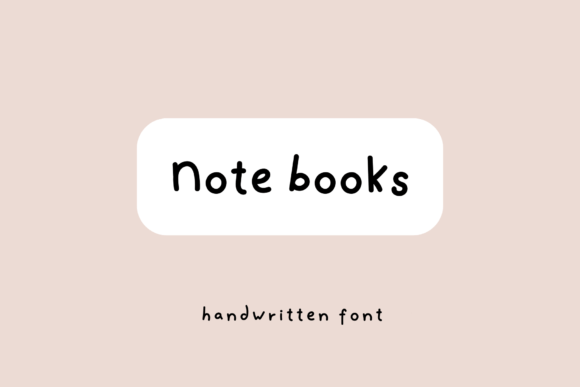
Embrace the Sweetness of Note Books Font: Add a Whimsical Touch to Your Designs
Introducing Note Books Font, a captivating script font family exuding an irresistible charm. This delightful font is the brainchild of Cotton White Studio, a creative powerhouse known for crafting fonts that spark joy and captivate hearts.
With its playful and enchanting style, Note Books Font is the perfect companion for any project that seeks to infuse a touch of whimsy and magic. Its meticulously crafted characters, reminiscent of handwritten notes penned with love, lend an undeniable charm to your designs.
Whether you're creating personalized greeting cards, heartfelt invitations, eye-catching social media graphics, or distinctive branding materials, Note Books Font is your secret weapon to make your work shine. Its versatility knows no bounds, effortlessly adapting to a myriad of projects.
Step into a world of creative possibilities with Note Books Font. Its enchanting nature will enchant your audience, leaving them spellbound by your designs. Unleash your imagination and let this whimsical font guide you towards creating design marvels that leave a lasting impression.
Dive into the realm of Note Books Font today and let your designs flourish with sweetness, charm, and boundless creativity.